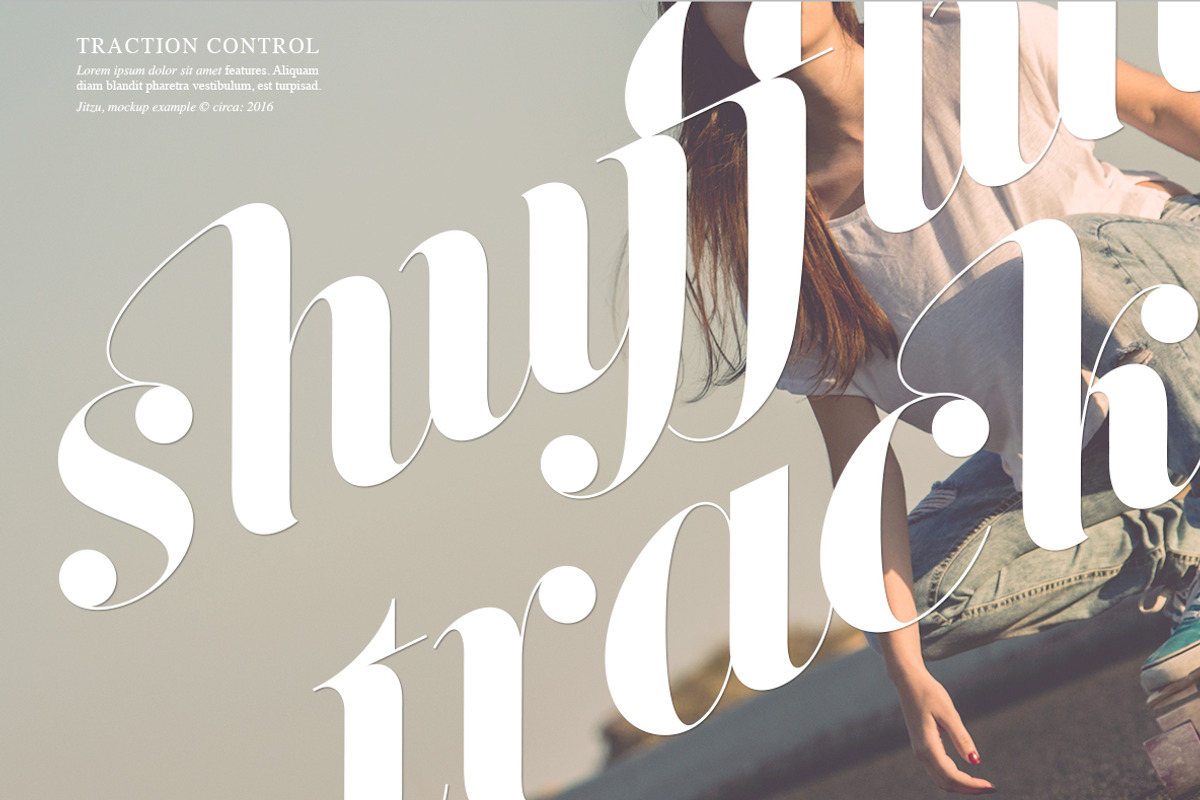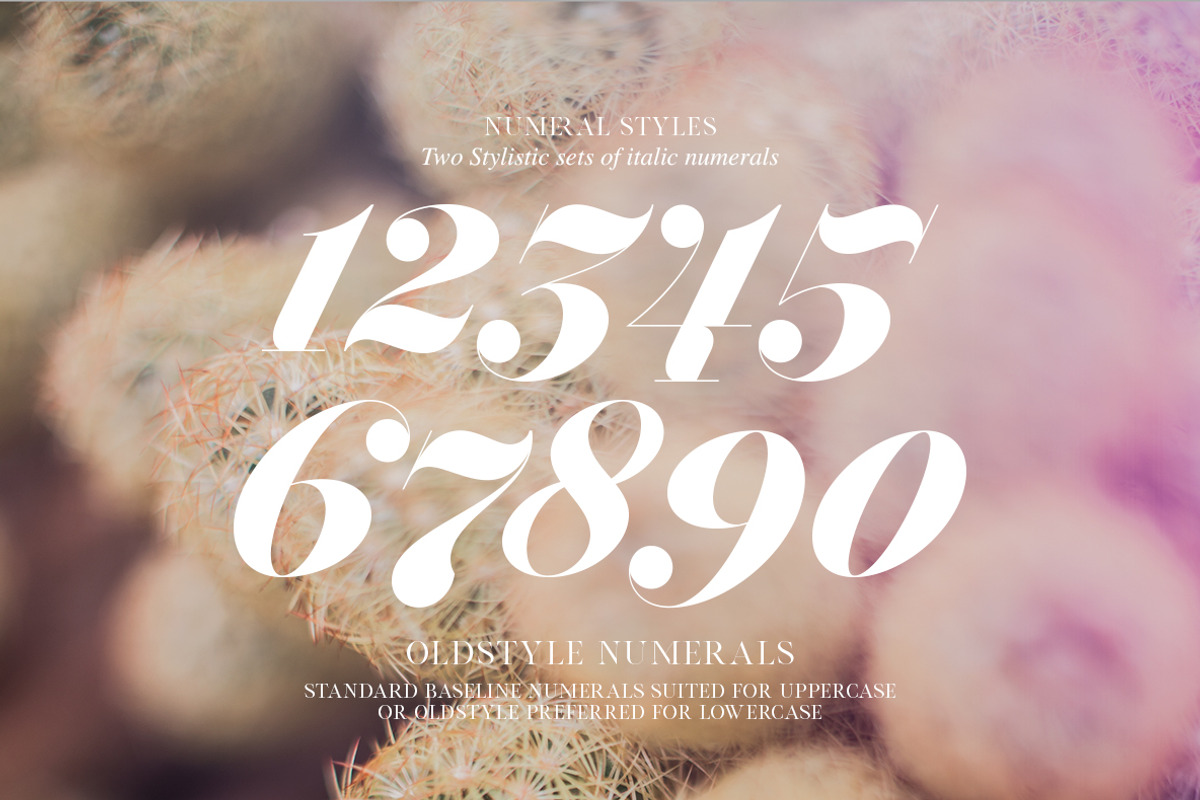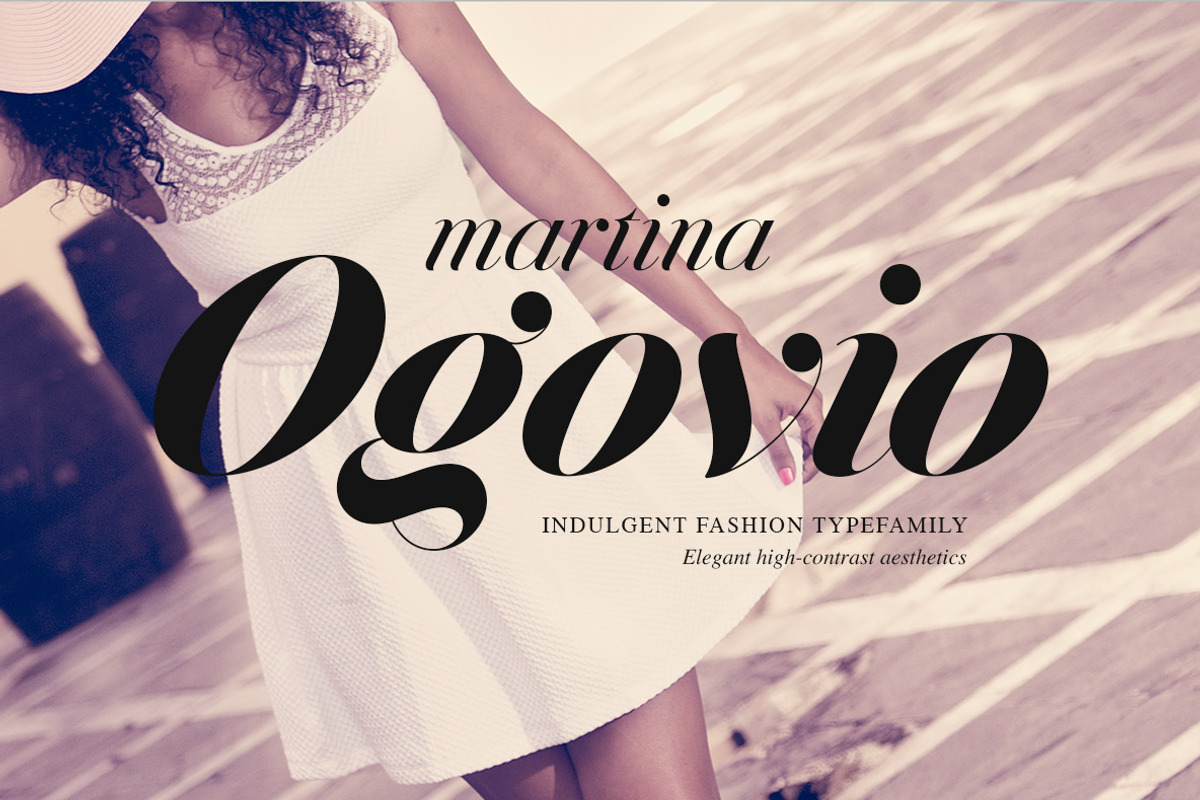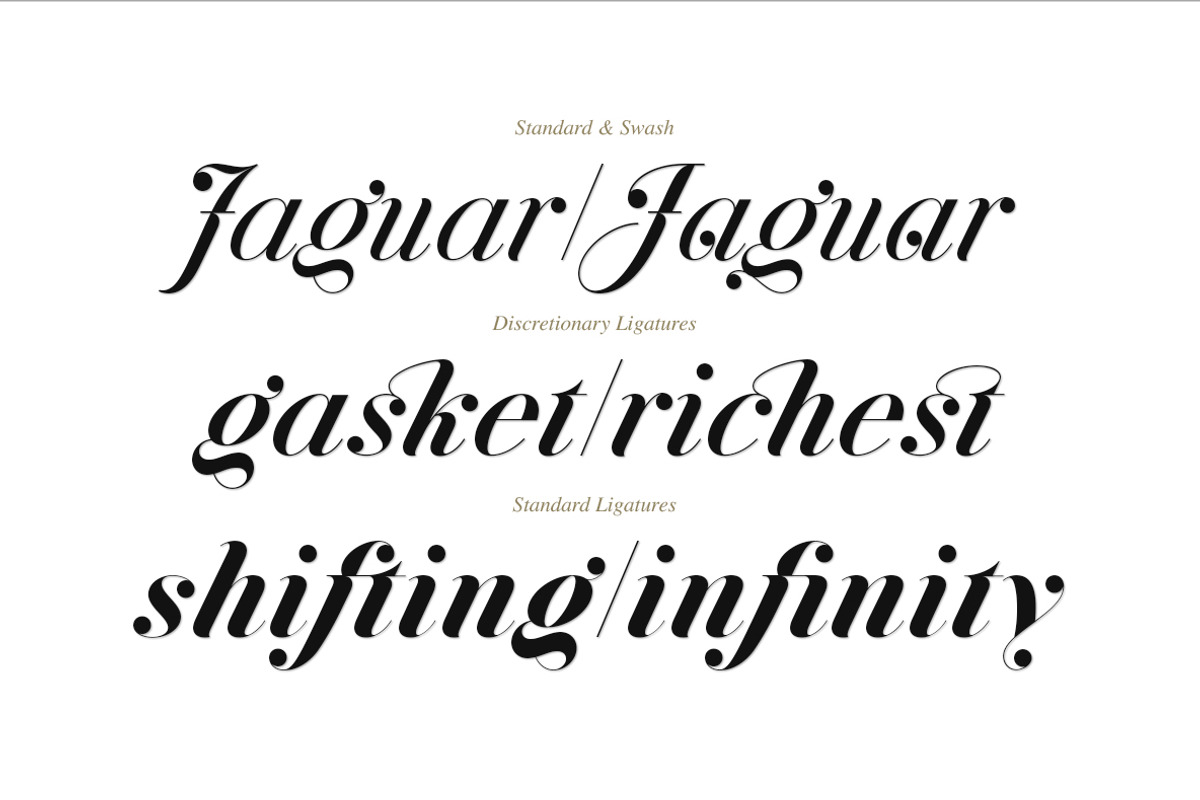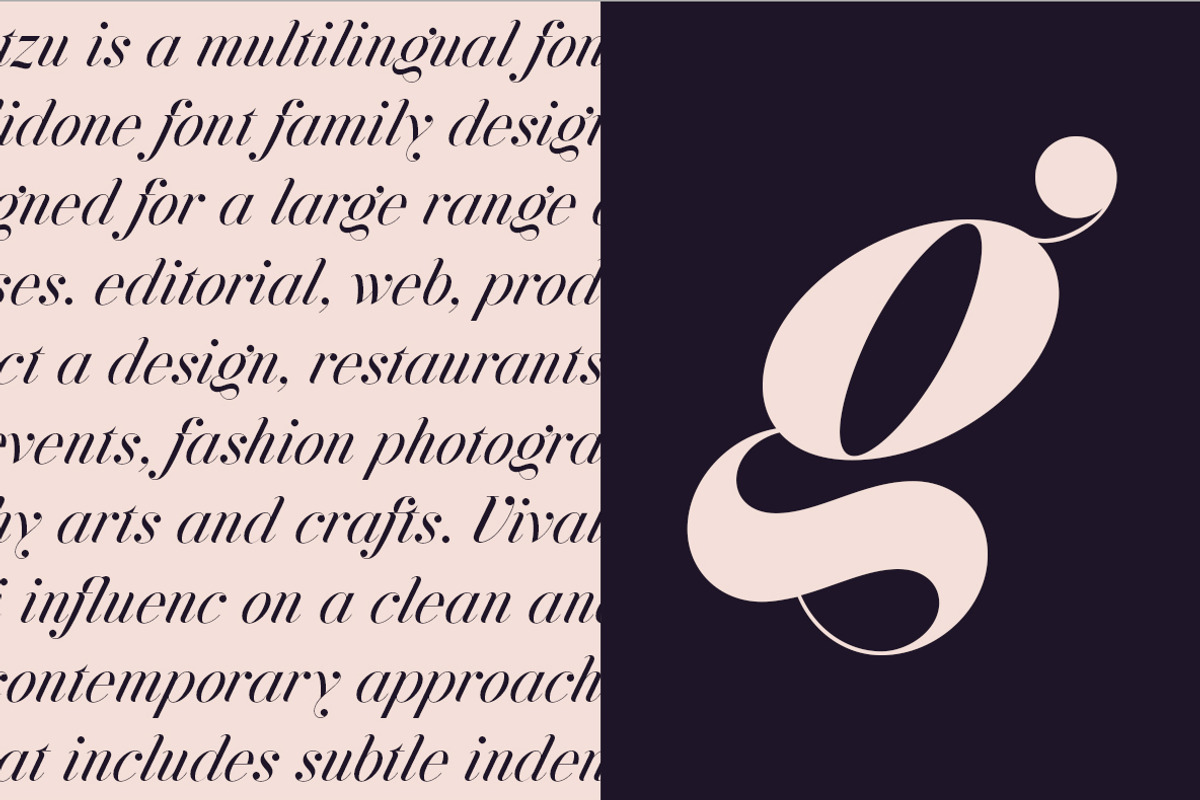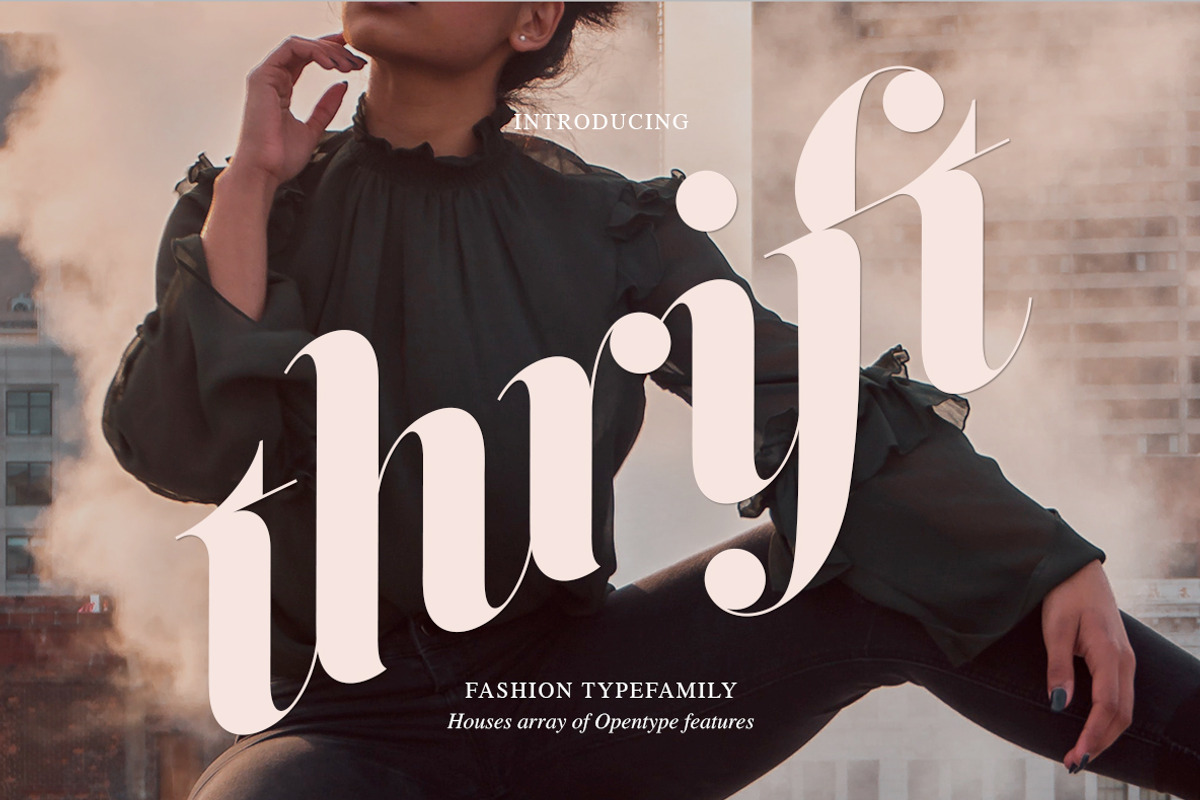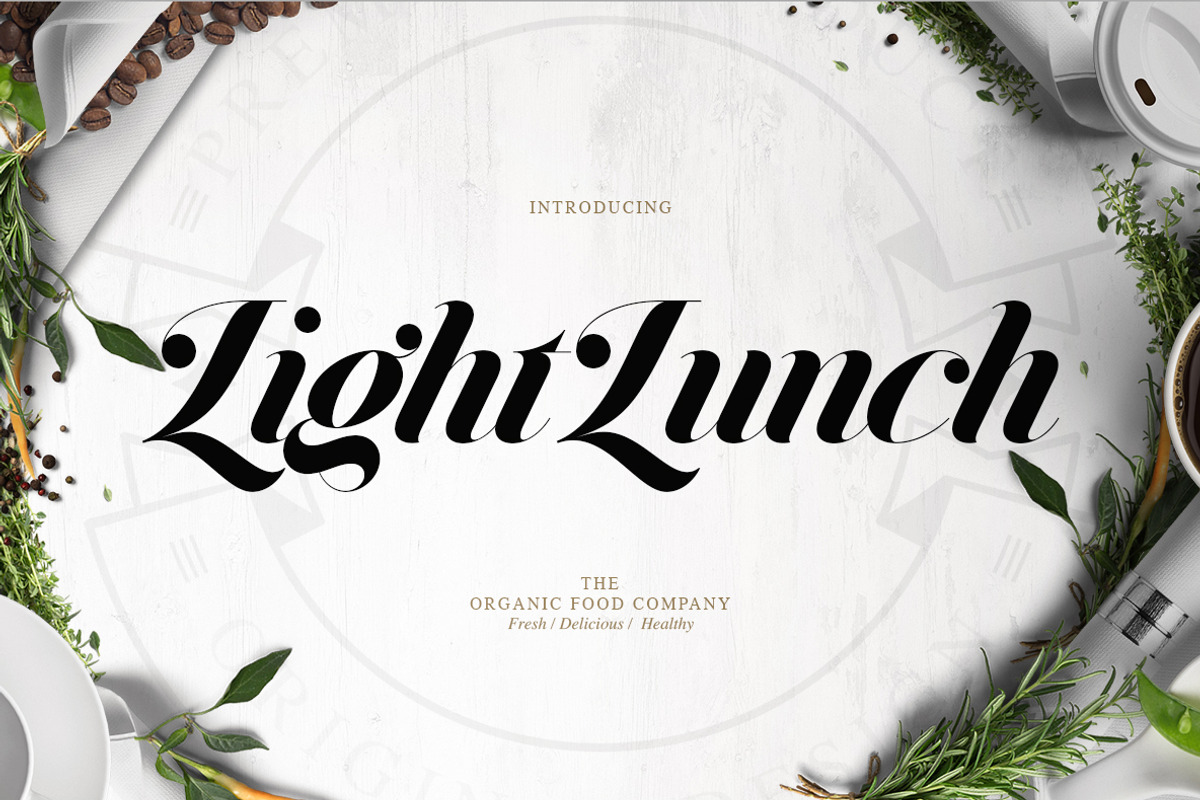
Jitzu Font Family
Jitzu Font Family by Anthony James is a font selected for branding, posters, packaging, typography.
- Focusing on a clean and contemporary approach that includes subtle indentations, the parameters and balance remain intact.
- Consisting of multiple styles and 10 weights, it is well equipped with many Opentype features such as alternate glyphs, swashes, standard/di
- Multilingual with nearly 4000 Glyphs.
- Jitzu Regular
- Jitzu Swash Regular
- Jitzu Medium
- Jitzu Swash Medium
- Jitzu Bold
- Jitzu Swash Bold
- Jitzu Black
- Jitzu Swash Black
- Jitzu Display
- Jitzu Swash Display
Why Jitzu Font Family is worth a look
Jitzu Font Family by Anthony James fits naturally into Branding, posters, packaging, typography.